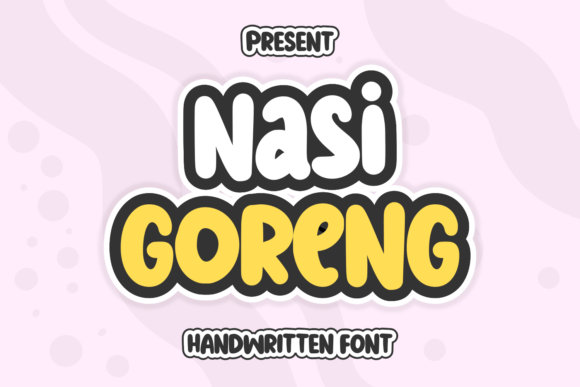
Embark on a culinary adventure with Nasi Goreng Font, a tantalizing sans serif display font that will ignite your designs with a dash of playfulness and a pinch of spice. Inspired by the vibrant energy of Indonesian cuisine, Nasi Goreng Font is a feast for the eyes, inviting you to savor the flavors of creativity in your next project.
Picture this: a sizzling wok full of vibrant ingredients, each adding a unique layer of texture and taste to the dish. Just as each ingredient contributes to the symphony of flavors in nasi goreng, every glyph and swash in Nasi Goreng Font is meticulously crafted to harmonize with your design vision. Unleash your culinary creativity and let the playful spirit of Nasi Goreng Font dance across your designs.
Nasi Goreng Font is the missing ingredient you've been craving to elevate your sticker designs, book covers, branding, and more. Its versatile personality effortlessly adapts to a wide range of projects, adding a dash of whimsy to your creations.
Whether you're a seasoned designer or just starting out, Nasi Goreng Font is your secret weapon to create designs that tantalize the taste buds of your audience. Dive into the world of Nasi Goreng Font and let your creativity sizzle!
Key Features of Nasi Goreng Font:
- Sans serif display font brimming with personality
- Perfect for sticker designs, book covers, branding, and more